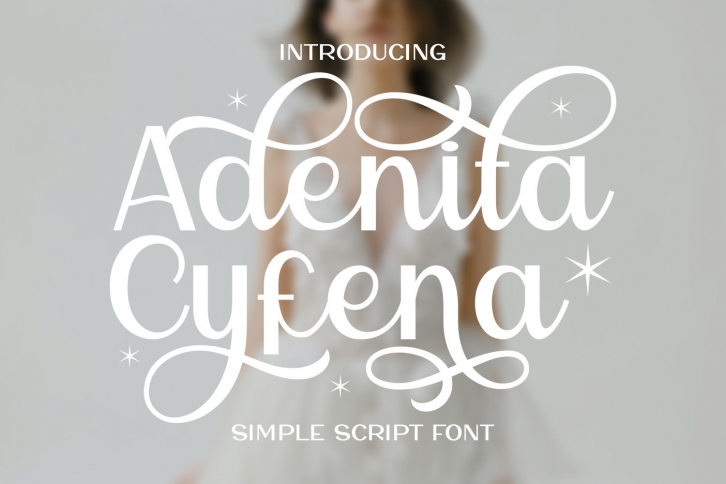
Adenita Cyfena is a gorgeous looking and chic script font. This font is PUA encoded which means you can access all of the glyphs and swashes with ease!